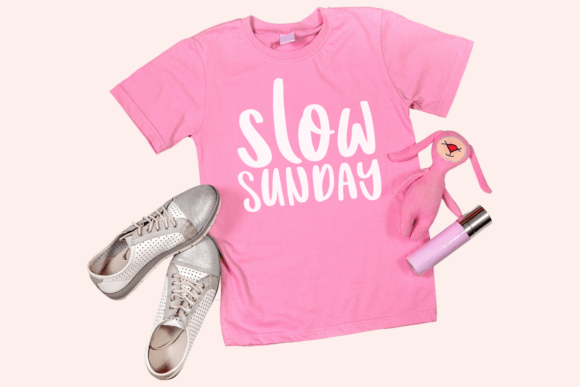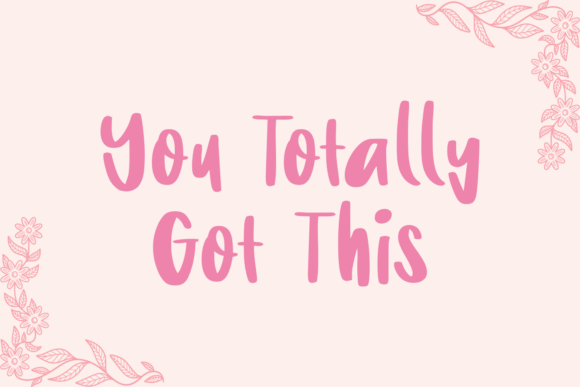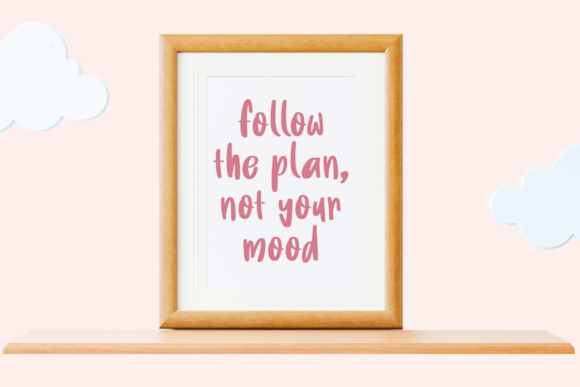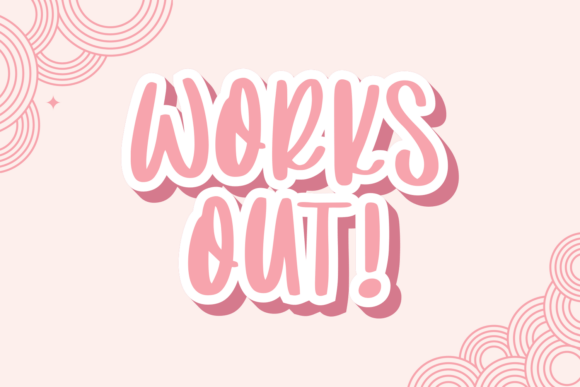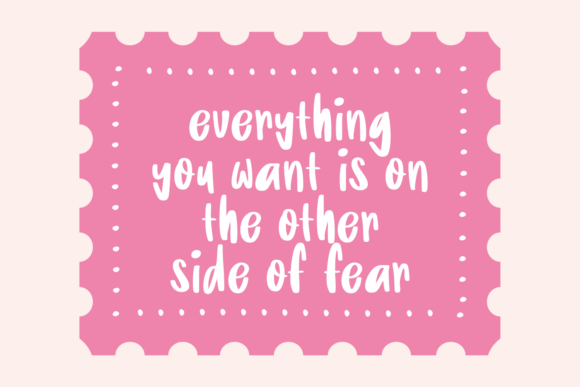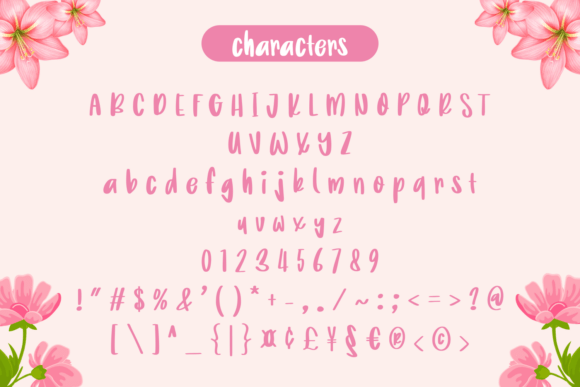
Discover the Unique Charm of Briella Qonita Font
In the world of typography, finding the perfect balance between organic charm and modern eccentricity can be a daunting task. However, with Briella Qonita, a cute display font designed for unique visual storytelling, this balance is beautifully achieved. This typeface is characterized by bold, rhythmic letterforms with a soft, “hand-cut” aesthetic and a slightly bouncy baseline, making it an extraordinary choice for various design applications.
The Distinctive Features of Briella Qonita
Briella Qonita’s design is marked by its heavy visual weight and friendly silhouette, which together provide a sophisticated yet approachable aesthetic. The font’s bold letterforms are crafted to grab attention while maintaining an element of elegance, making it suitable for projects that require a touch of sophistication and a lot of personality.
The soft, “hand-cut” aesthetic of Briella Qonita gives it a unique, artisanal feel that is perfect for designs looking to convey a sense of handmade quality or bespoke craftsmanship. This feature, combined with its slightly bouncy baseline, adds a dynamic and playful touch to the text, setting it apart from more traditional typefaces.
Applications of Briella Qonita
Briella Qonita’s versatility makes it an excellent choice for a variety of design projects. Here are some of the areas where this font truly shines:
- Artisanal Product Packaging: The font’s hand-cut aesthetic and sophisticated feel make it ideal for product packaging that aims to convey a sense of artisanal quality or luxury.
- Creative Editorial Headers: Briella Qonita’s bold and attention-grabbing letterforms are perfect for editorial content that needs to stand out, such as magazine headers, book titles, and blog posts.
- Boutique Branding: For boutique brands looking to establish a unique and memorable visual identity, Briella Qonita offers a blend of elegance and approachability that can help set them apart.
- Engaging Social Media Content: In the crowded world of social media, Briella Qonita can help your content grab attention and maintain it, making it perfect for posts, stories, and advertisements.
Bringing Polished Artisanal Prestige to Your Visual Identity
Briella Qonita is more than just a font; it’s a design element that can elevate your visual identity with a sense of polished artisanal prestige and effortless, human-centric character. Its unique blend of modern eccentricity and organic charm allows designers and crafters to create visually compelling content that resonates with audiences.
The use of Briella Qonita in your designs communicates a commitment to quality and a keen eye for detail. Whether you’re working on a boutique brand’s visual identity, crafting editorial content, or designing product packaging, this font ensures that your work stands out for its creativity and sophistication.
Tips for Using Briella Qonita Effectively
To make the most of Briella Qonita in your designs, consider the following tips:
- Pair with Contrasting Fonts: For optimal readability and visual interest, pair Briella Qonita with a simpler, more straightforward font for body text.
- Experiment with Colors: While Briella Qonita’s aesthetic is stunning in black and white, experimenting with colors can further enhance its unique charm and make your design pop.
- Play with Sizes: Don’t be afraid to vary the size of Briella Qonita’s letterforms to create visual hierarchy and emphasize key points in your design.
| Font Name | Briella Qonita Font |
| Author | Rifki (7ntypes) |
Briella Qonita is a versatile and visually striking font that brings a perfect balance of organic charm and modern eccentricity to any design project. Its unique features, such as bold letterforms, a soft hand-cut aesthetic, and a slightly bouncy baseline, make it an excellent choice for a wide range of applications, from artisanal product packaging to engaging social media content.
By incorporating Briella Qonita into your designs, you can add a touch of polished artisanal prestige and human-centric character that elevates your visual identity and sets your work apart. Whether you’re a designer, crafter, or simply someone who appreciates beautiful typography, Briella Qonita is sure to inspire and enhance your creative projects.